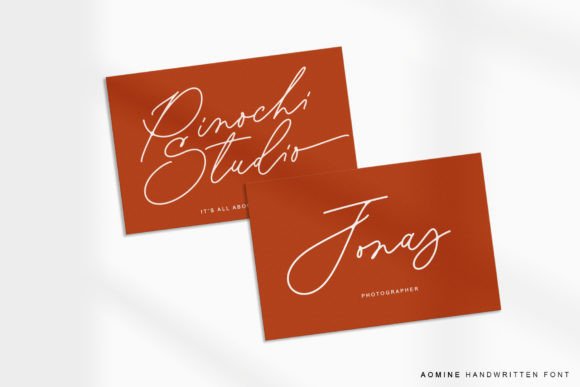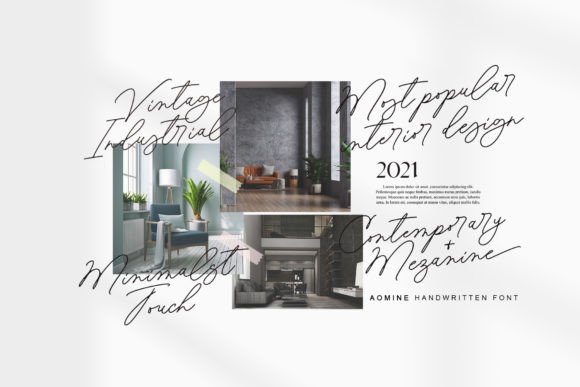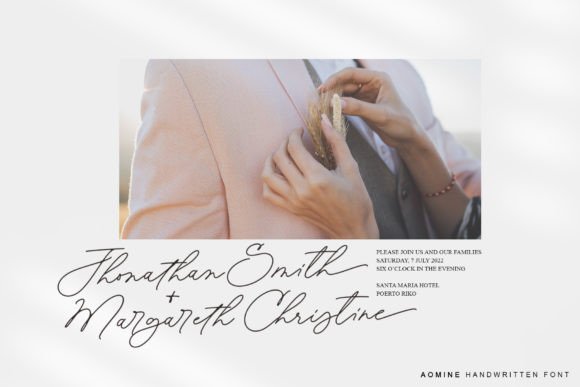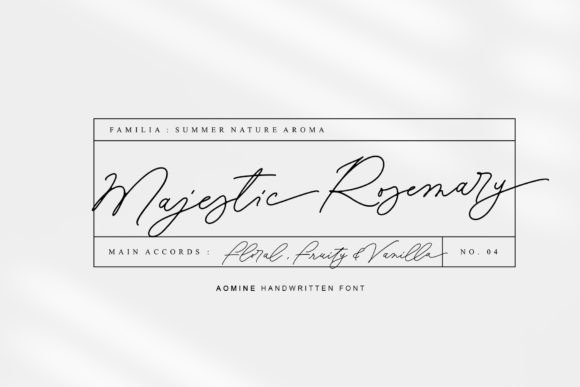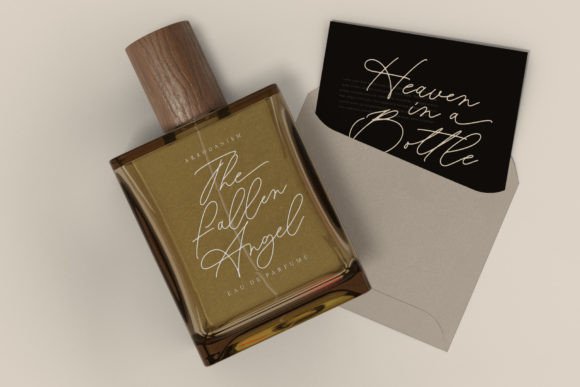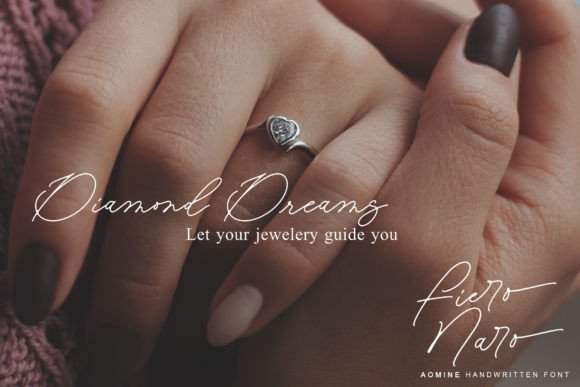
Aomine Font: Elevate Your Designs with Elegance and Whimsy
In the world of typography, fonts play a crucial role in bringing creative ideas to life. For designers and crafters, finding the perfect font can be a daunting task. However, if you’re looking for a delicate, elegant, and casual handwritten font that can elevate your designs, look no further than Aomine Font. In this article, we’ll dive into the world of Aomine Font, exploring its features, benefits, and uses.
What is Aomine Font?
Aomine Font is a beautiful, handwritten font that exudes elegance and whimsy. Its delicate strokes and balanced characters make it an ideal choice for a wide range of designs, from digital projects to print materials. Whether you’re working on a logo, invitation, or social media graphic, Aomine Font is sure to add a touch of sophistication and charm.
Key Features of Aomine Font
- Delicate and Elegant: Aomine Font boasts a delicate and elegant design, perfect for creating sophisticated and refined visuals.
- Balanced Characters: The font’s balanced characters ensure that it matches a wide pool of designs, making it a versatile choice for various projects.
- Casual and Handwritten: Aomine Font has a casual, handwritten feel that adds a touch of warmth and personality to any design.
- Wide Range of Uses: From digital projects to print materials, Aomine Font can be used in a variety of contexts, making it a valuable addition to any designer’s toolkit.
Benefits of Using Aomine Font
So, why should you choose Aomine Font for your next project? Here are just a few benefits of using this beautiful font:
- Adds Elegance and Sophistication: Aomine Font can instantly elevate your designs, adding a touch of elegance and sophistication.
- Versatile: The font’s versatility makes it suitable for a wide range of projects, from logos and branding materials to social media graphics and invitations.
- Easy to Read: Aomine Font is clear and easy to read, making it perfect for body text and headings.
- Unique and Creative: With Aomine Font, you can add a touch of personality and whimsy to your designs, setting them apart from the crowd.
How to Use Aomine Font in Your Designs
- Pair it with Bold Fonts: Combine Aomine Font with bold fonts for a striking contrast that adds visual interest.
- Use it for Headings and Titles: Aomine Font is perfect for headings and titles, adding a touch of elegance and sophistication.
- Add it to Your Branding Materials: Use Aomine Font in your branding materials, such as logos, business cards, and letterheads, to create a cohesive and refined visual identity.
- Experiment with Colors and Textures: Play around with different colors and textures to add depth and visual interest to your designs.
In conclusion, Aomine Font is a beautiful, delicate, and elegant handwritten font that can elevate your designs and bring your creative ideas to life. With its balanced characters, casual feel, and versatility, it’s an ideal choice for designers and crafters looking to add a touch of sophistication and whimsy to their projects. Whether you’re working on a digital project or print material, Aomine Font is sure to make a lasting impression.